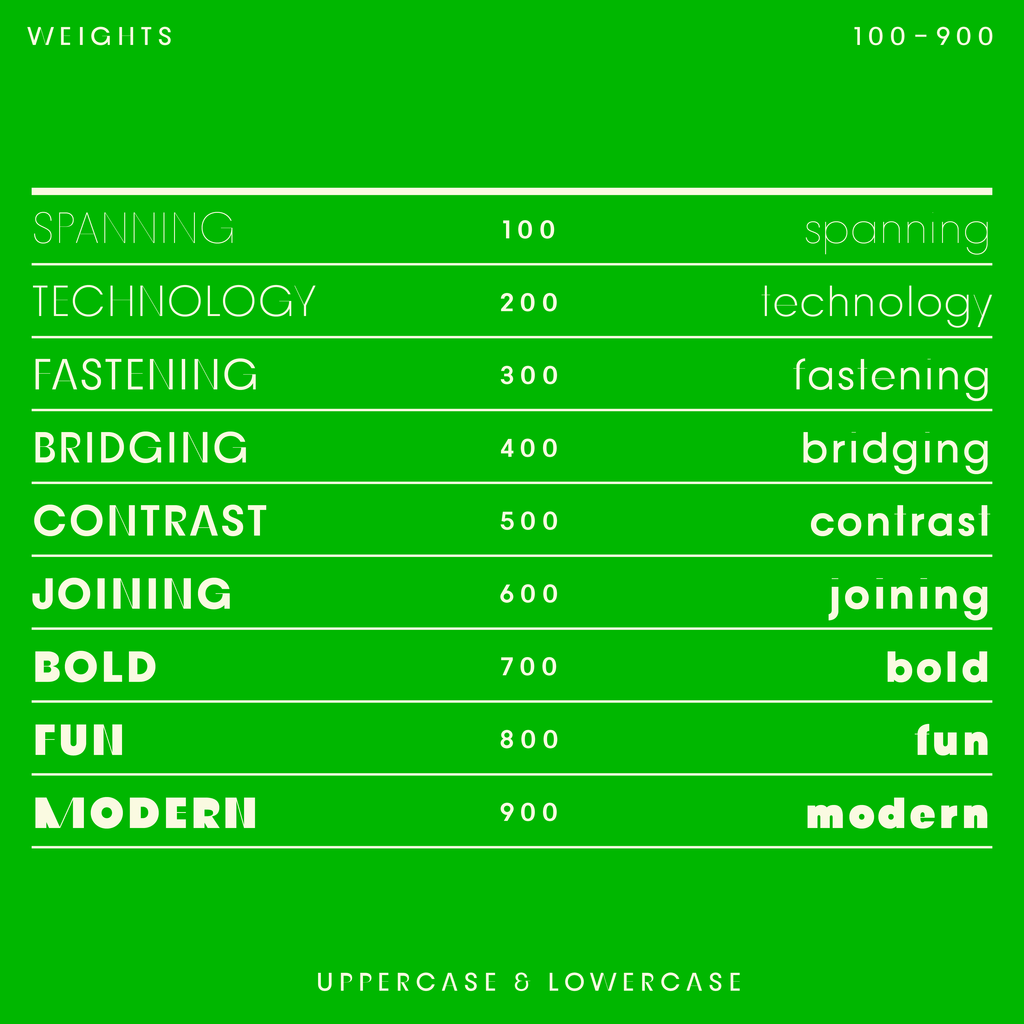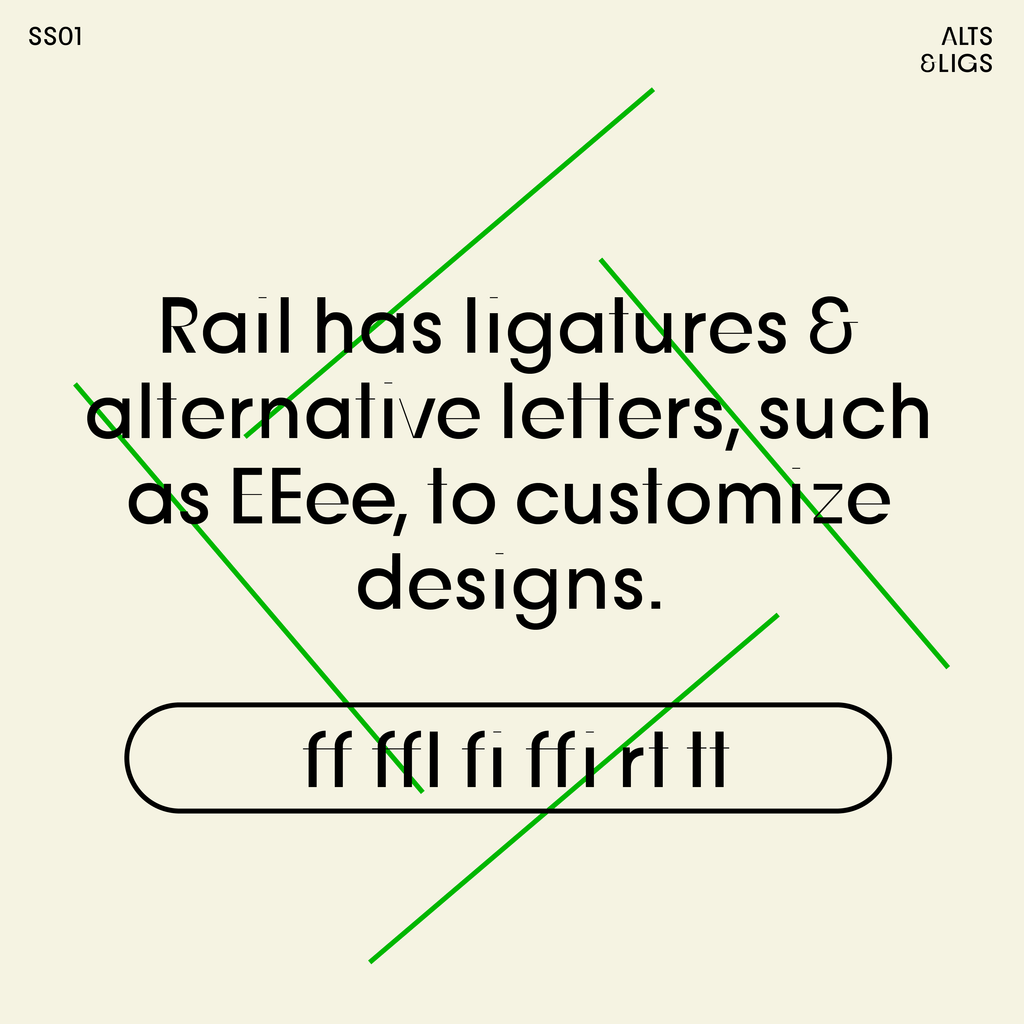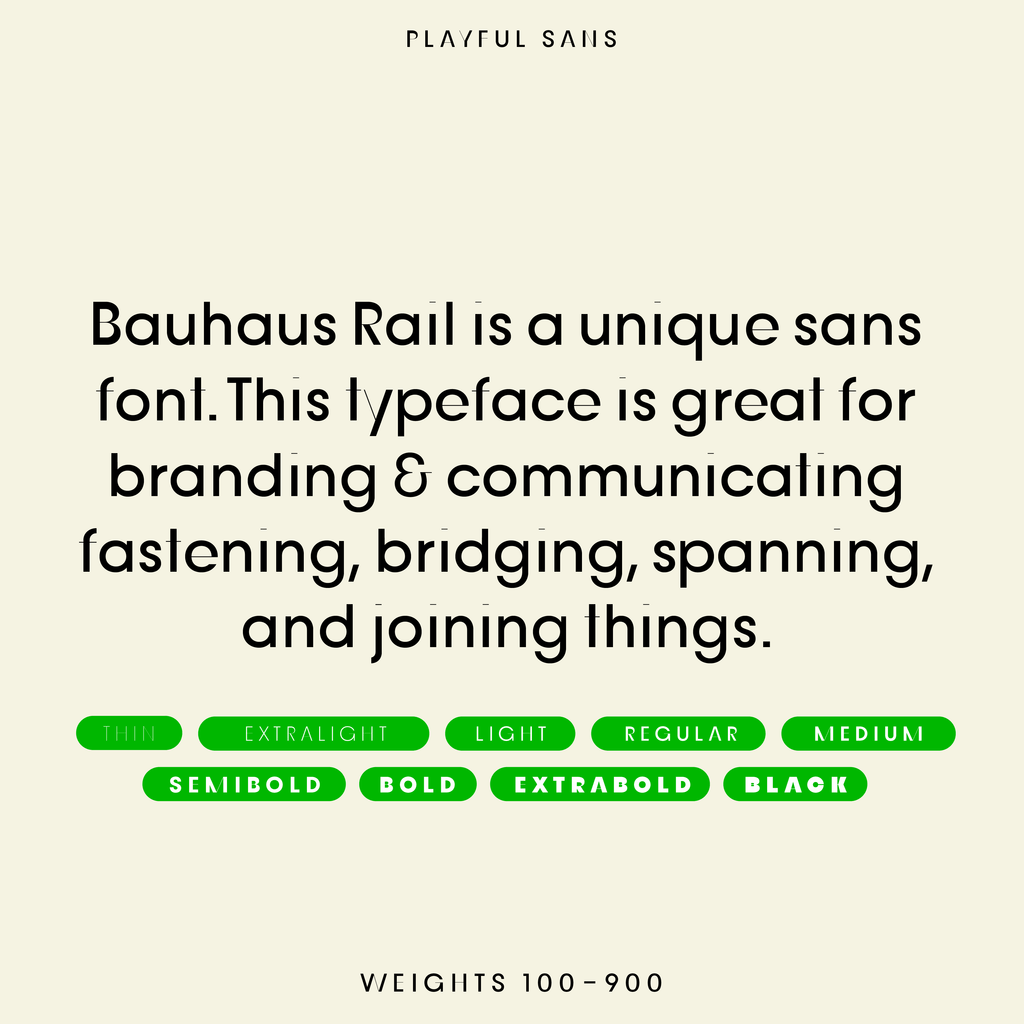
Rail—Fun contrast font with thin lines
Bauhaus Rail is a modern high-contrast sans-serif type. A thin line connects Rail’s letter stems, giving the font a fun, quirky quality. This typeface is great for logo design and branding, communicating a brand concept of fastening, bridging, spanning, and joining things.
While the typeface uses a geometric sans frame, the contrast line design interrupts the straightness, making any text look more intriguing and fun.